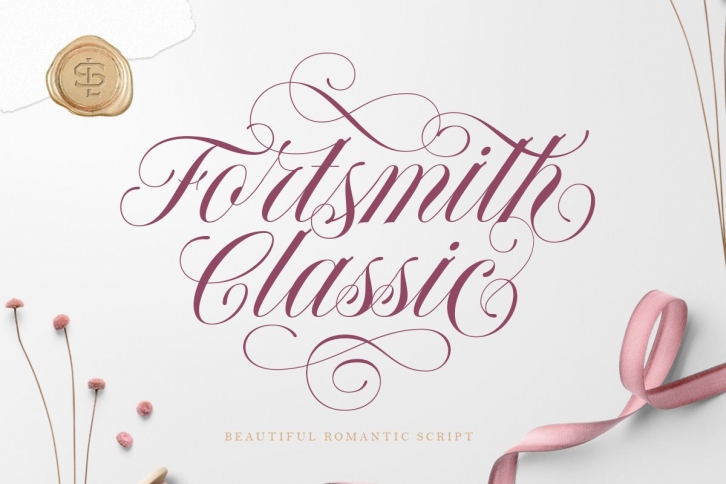
Please welcome our newest script typeface, Forthsmith Classic. A Beautiful and classy script that has many swashes that allows you to create beautiful lettering instantly. it has many stylistic set alternates that you can choose from. the swashes also provided in EPS file format as well.
This font perfectly made to be applied especially in logo, and the other various formal forms such as invitations, labels, logos, magazines, books, greeting / wedding cards, packaging, fashion, make up, stationery, novels, labels or any type of advertising purpose.
• uppercase & lowercase
• numbers and punctuation
• multilingual
• ligatures
• alternates
• swashes